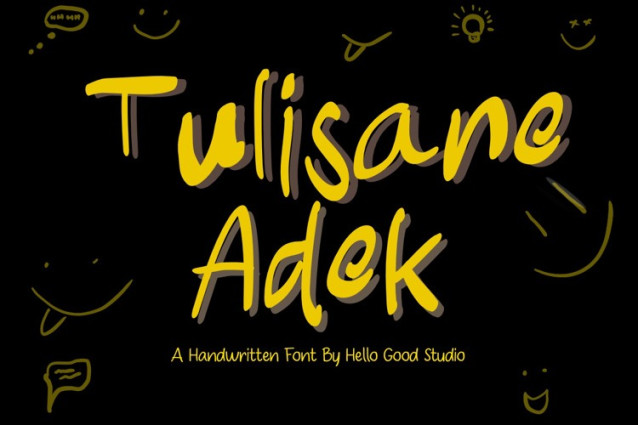
Tulisane Adek Font
Tulisane Adek Font is a simple and friendly handwritten font. Its natural and unique style makes it incredibly fitting to a large pool of designs. The only limit is your imagination!